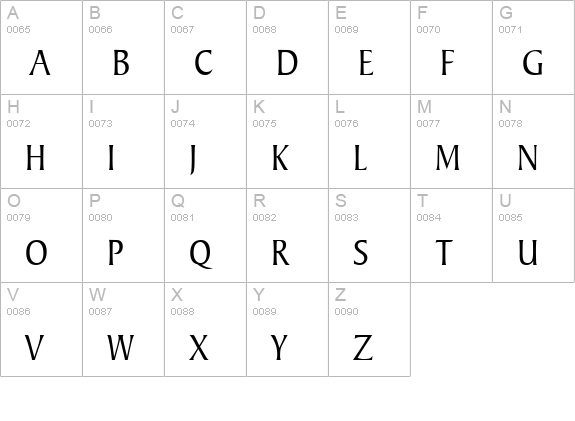
Barrett-Condensed Normal Font Details
Barrett-Condensed Normal is the standard, neutral, condensed-width variant in the Barrett typeface family \xE2\x80\x94 well suited to general body text, paragraphs, and standard typographic work.
Barrett-Condensed Normal font is a stylish and modern typeface that strikes the perfect balance between elegance and readability. Its clean lines and sleek design make it a versatile choice for a wide range of design projects, from branding to editorial design. This font is the ideal choice for those looking to make a statement with their typography while maintaining a professional and polished appearance. With its condensed style, Barrett-Condensed Normal font is perfect for creating eye-catching headlines or adding a touch of sophistication to your designs. Best of all, this font is free to download at FontsMarket.com, making it accessible to all designers and creatives looking to elevate their projects with a high-quality typeface. Don't miss out on the opportunity to enhance your designs with the timeless elegance of Barrett-Condensed Normal font. Download it today and add a touch of class to your next project.